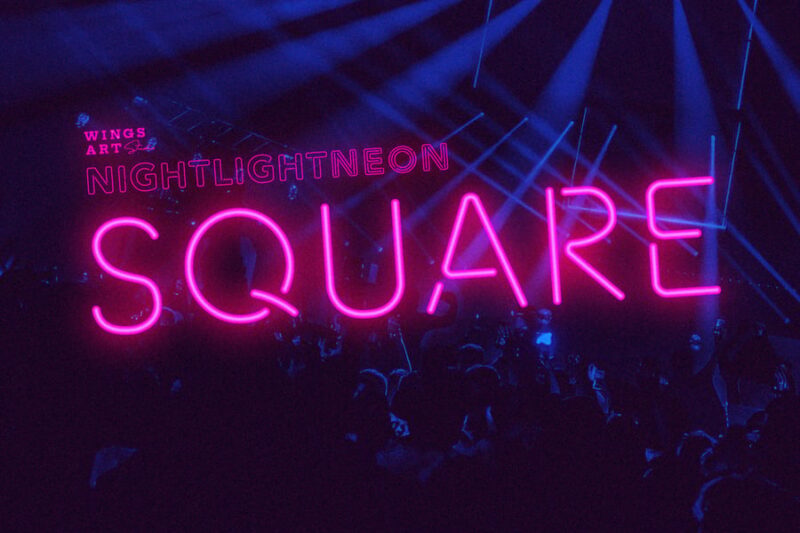
FREE Neon Font Generator – Create Neon Signs & Neon Lettering
Transform your text into electrifying brilliance with our free Neon font generator! Perfect for creating eye-catching designs that glow with vibrant energy. Our tool features stunning neon-inspired typography that captures the electric atmosphere of classic signs and modern nightlife.
Neon Font
Generator
Create Text That Lights Up the Night!
Here’s how to generate your neon-style text:
1. Type your text (let it shine)
2. Choose your font size (from subtle accent to marquee spectacular)
3. Pick your colors (electric blue, hot pink, vibrant purple, or classic neon green)
Looking to add some electric excitement to your next project? Our neon fonts bring that vibrant glow to everything from nightlife events to modern branding. Here are some popular ways our users create designs that truly stand out:
• Nightclub and entertainment venue promotions
• 80s and synthwave-themed events
• Bar and restaurant neon-inspired signage
• Music festival and concert graphics
• Gaming and streaming overlay designs
• Vaporwave and cyberpunk artwork
• Modern boutique and retail branding
Why Choose Our Neon Font Generator?
• Live Preview: Watch your text light up in real-time
• Glow Options: Multiple neon colors and intensity levels
• Works Everywhere: Perfect for digital displays and print
Retro Neon Font – Square Style
This vintage-inspired square style font captures the essence of classic neon signage with its geometric letterforms and authentic retro aesthetic. Perfect for designers seeking to create nostalgic branding or signage, this typeface works exceptionally well with neon font generators to achieve that electric glow effect. Its bold, structured design makes it ideal for headlines, logos, and display applications that demand attention.
Light Up Your Designs!
Ready to create typography that glows with electric personality? Try our font generator and bring that neon magic to your projects! Whether you’re designing for nightlife, creating retro-futuristic artwork, or just love the vibrant aesthetic, neon fonts add instant atmosphere and unforgettable style.
Transform your text into neon style today – it’s free, it’s electric, and guaranteed to make your designs shine bright!